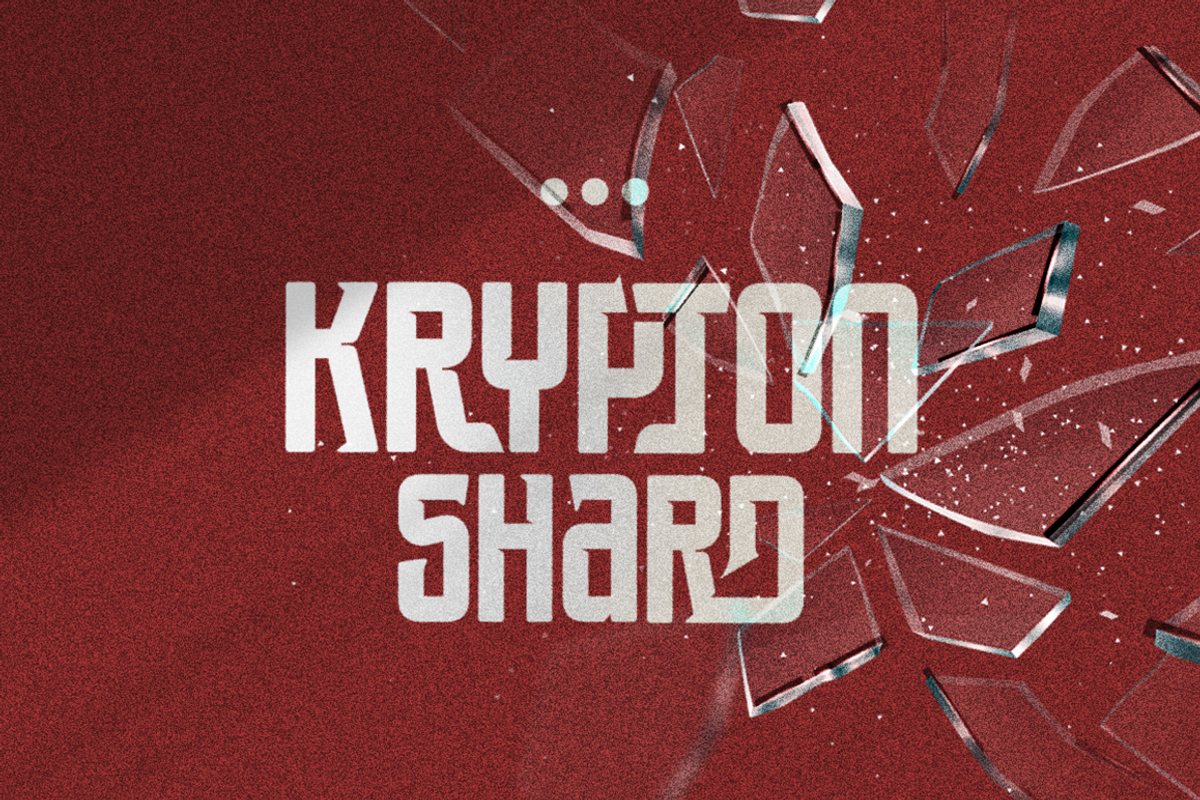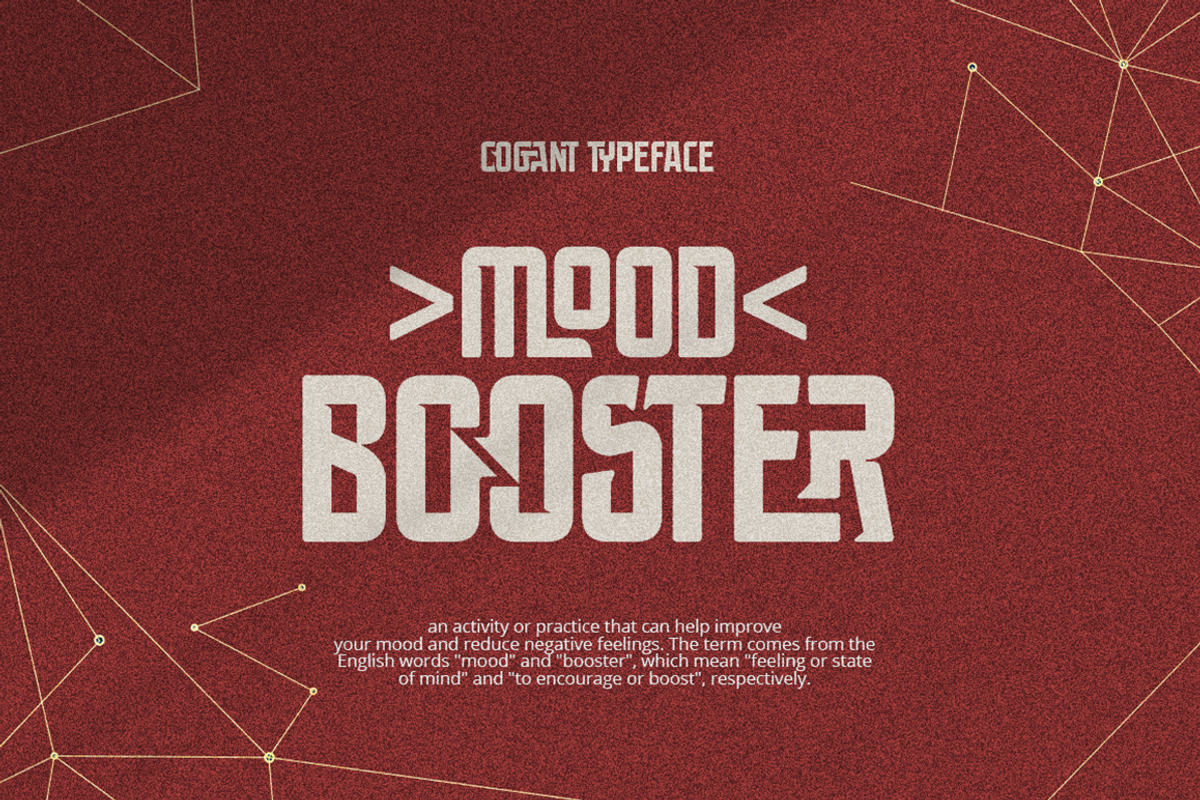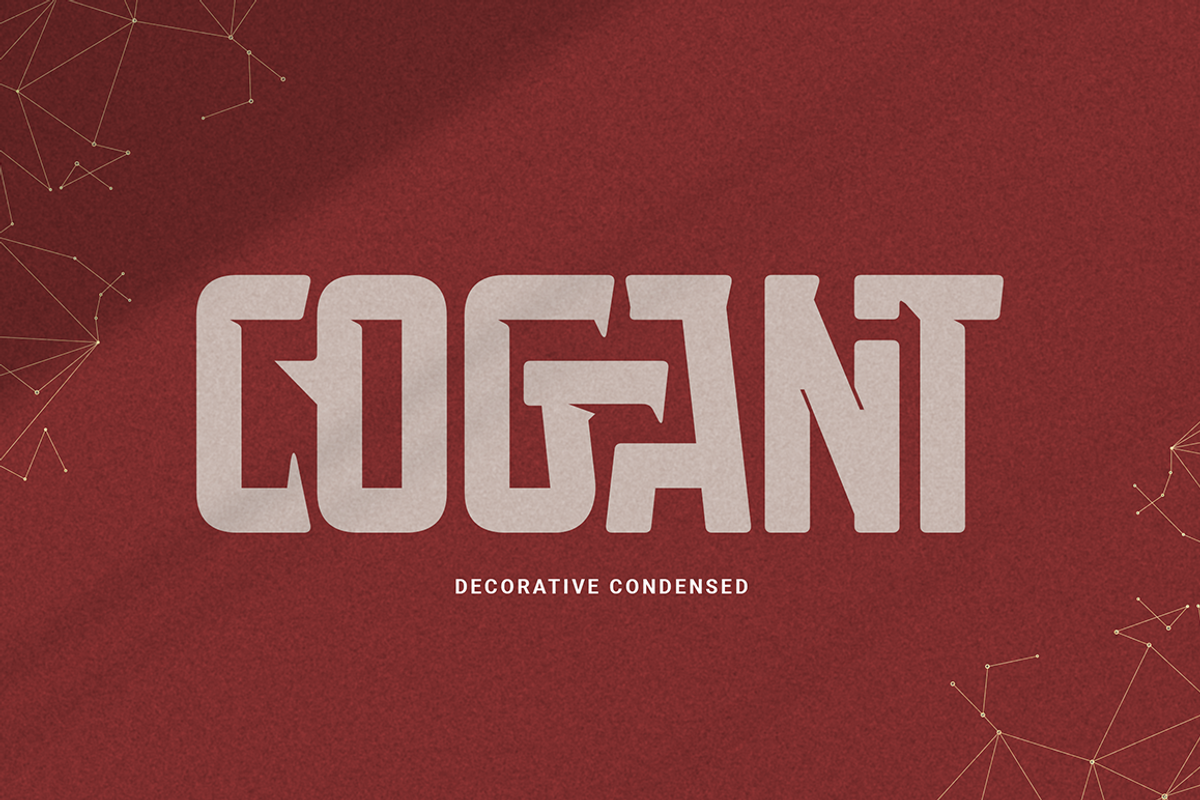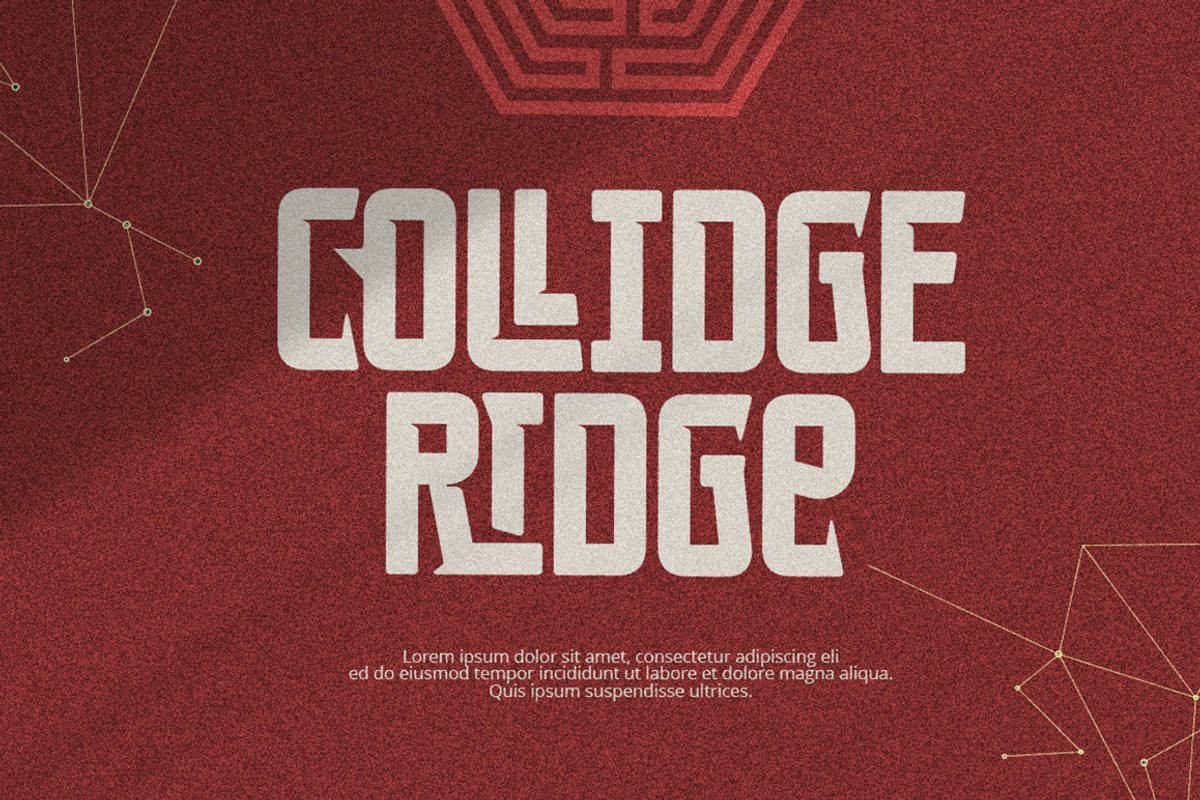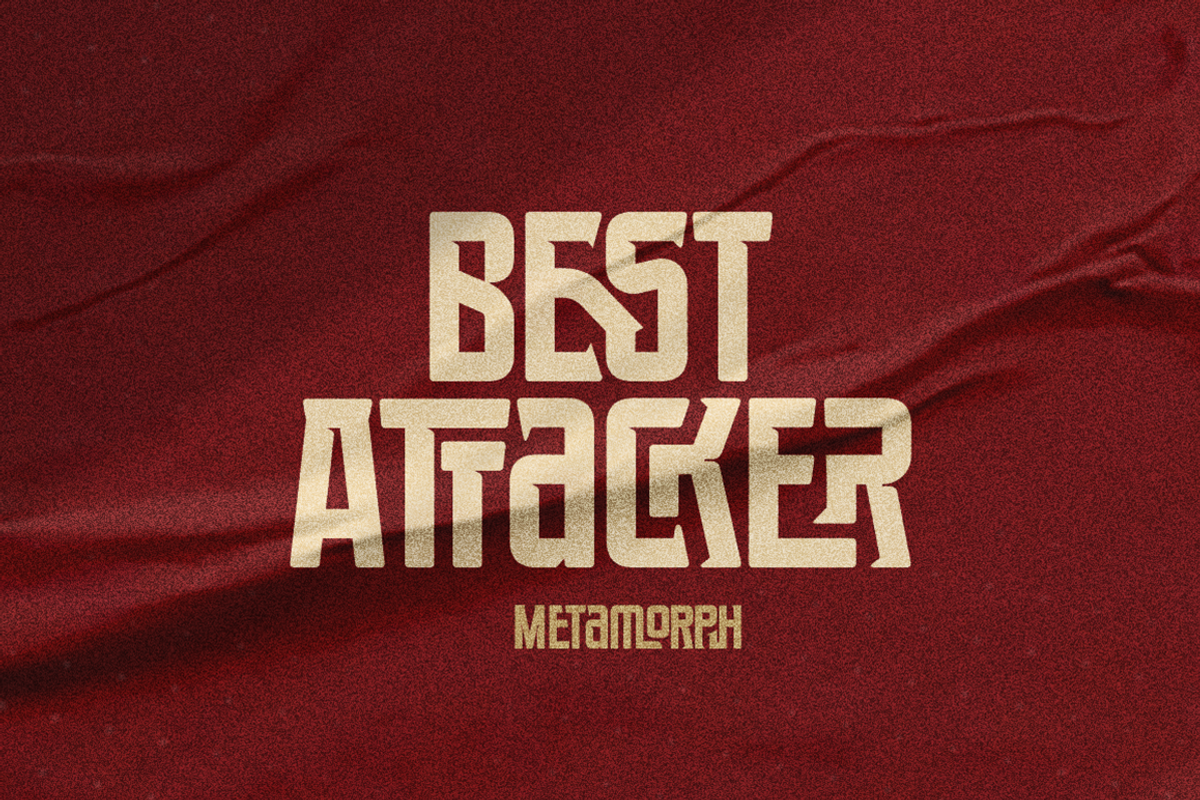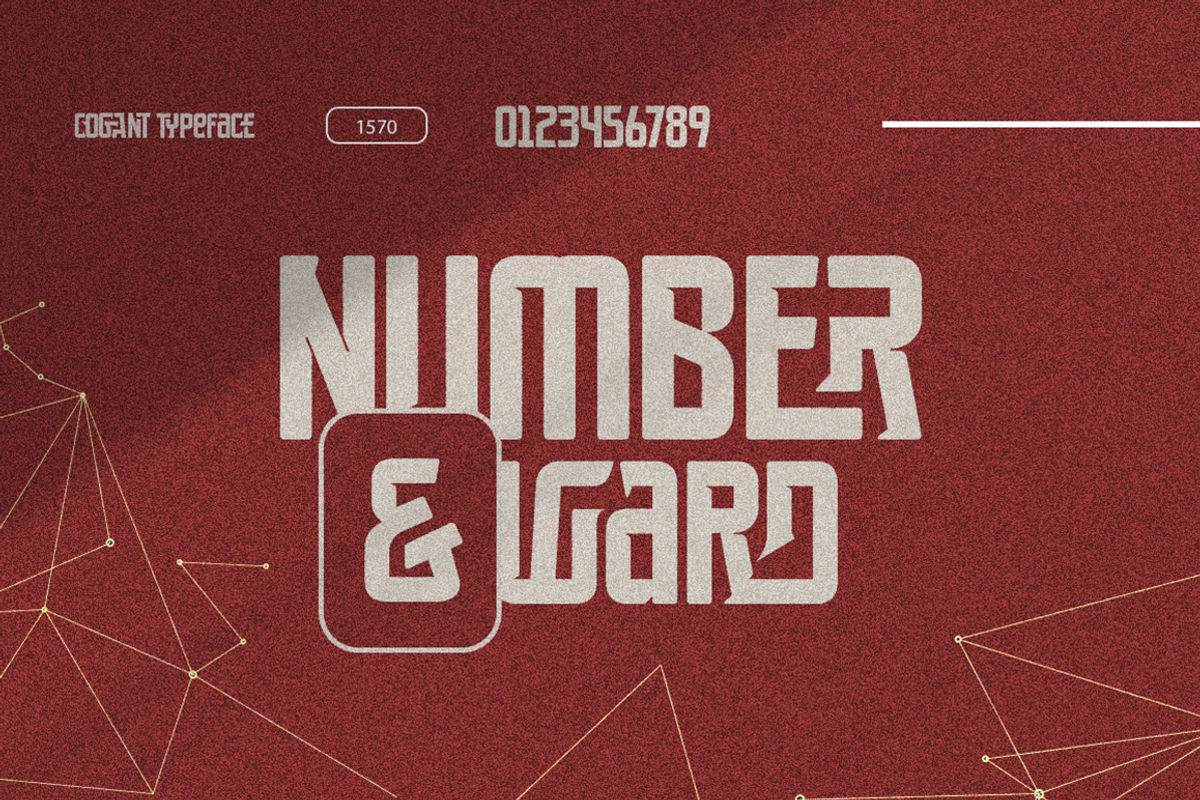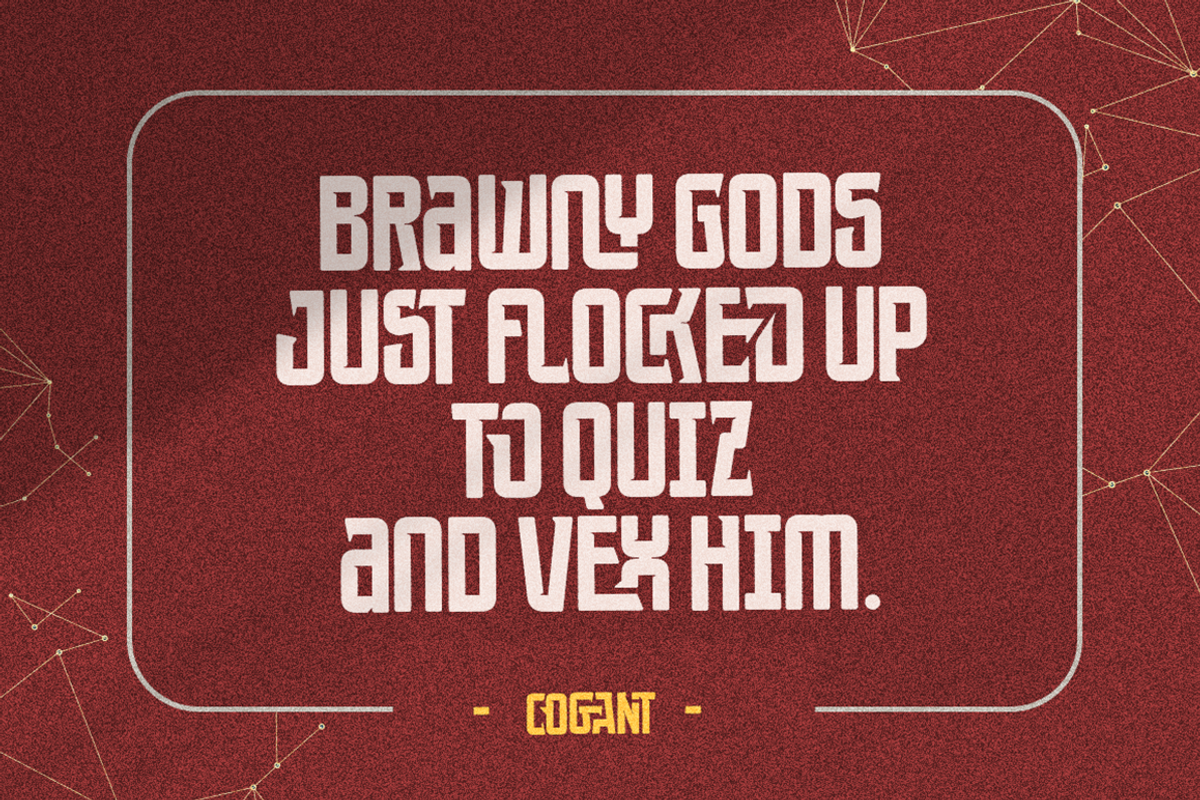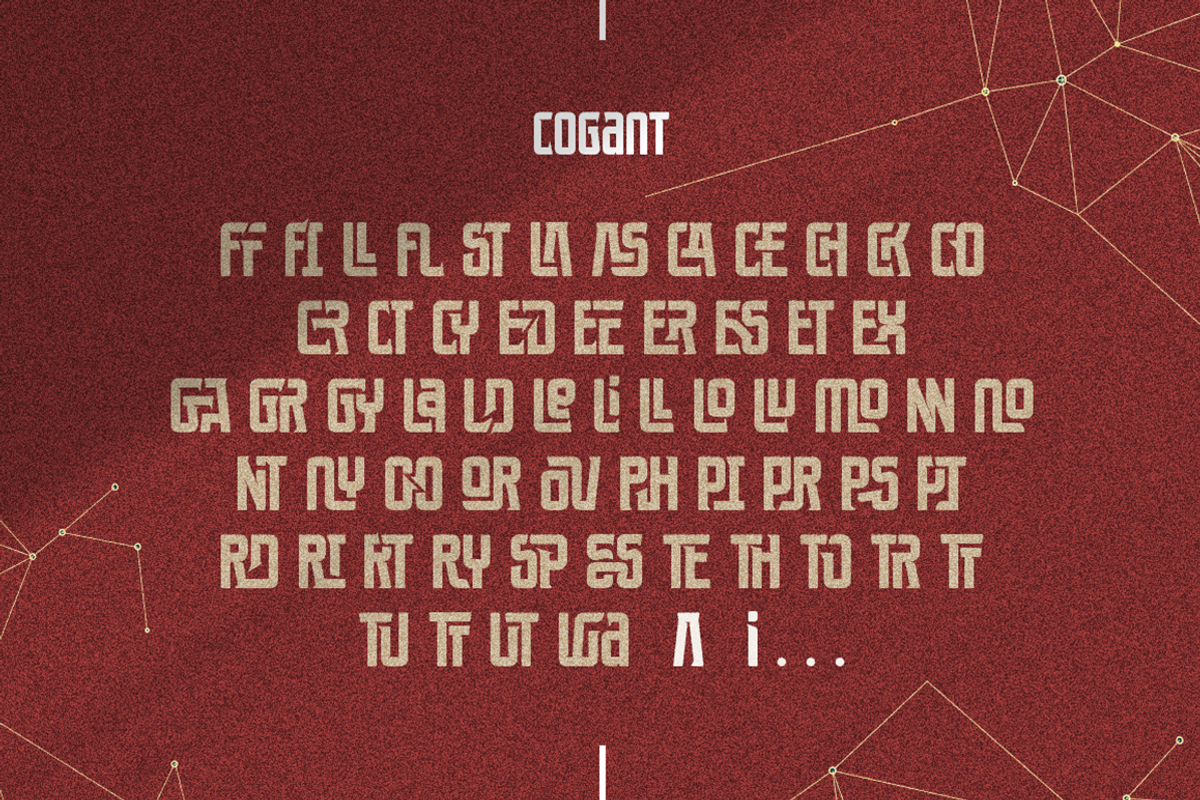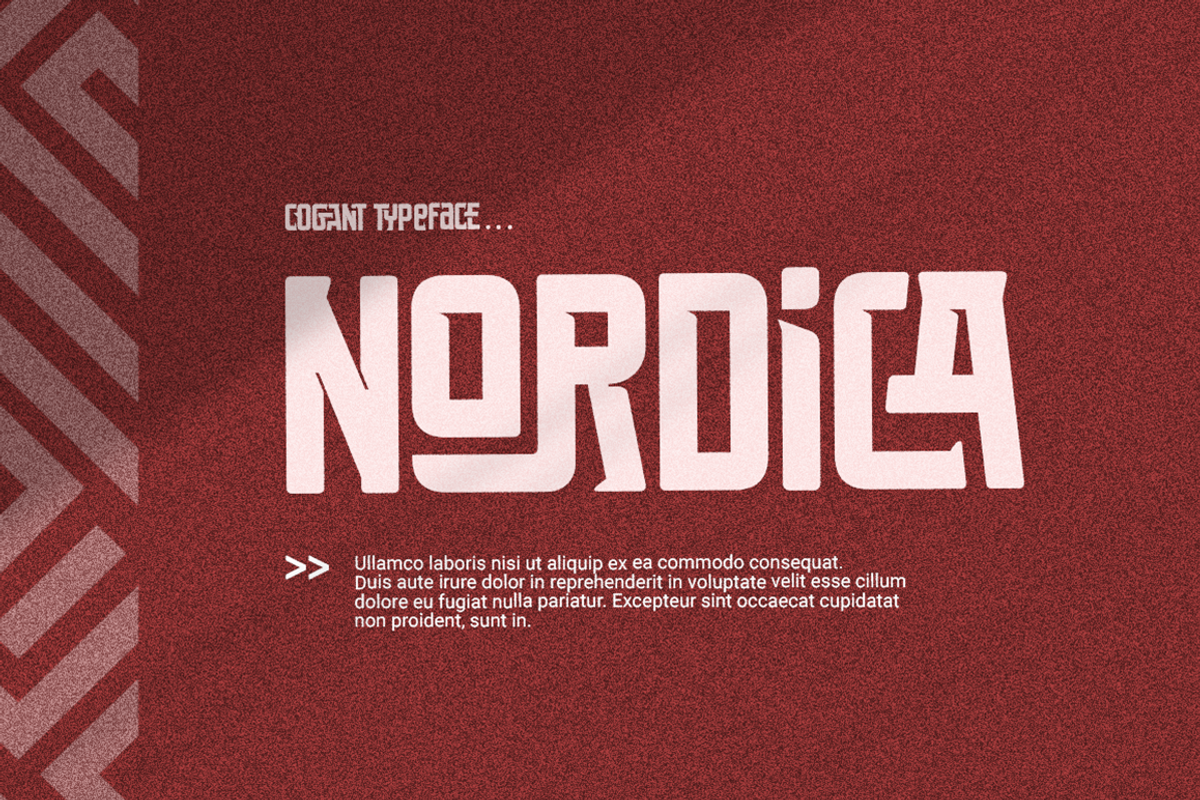
Cogant Typeface
Cogant is a bold, condensed typeface designed to make a statement. Its clean lines and strong character make it ideal for modern, impactful designs. Featuring a unique set of ligature pairs, Cogant adds a touch of sophistication and creativity to your projects. Whether you're creating a striking logotype, branding materials, or eye-catching headlines, Cogant delivers both elegance and personality. Perfect for designers seeking a font that stands out while maintaining versatility and readability.